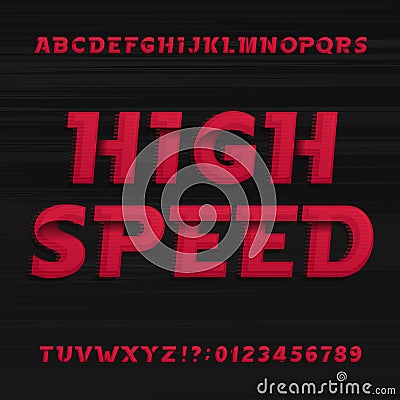
High Speed Alphabet Font. Oblique Dynamic Letters Numbers And Symbols. Cartoon Vector
High speed alphabet font. Oblique dynamic letters numbers and symbols on a dark background. Vector typography for your design.